Do the different numbers on the computer modern fonts only correspond to their point size. (Not sure if that's how to phrase it, e.g. 10 point font.) Do they actually look different as well? My math professor used cmr12, and I love it, but I feel like it's different from say, cmr10, in ways more than just size.
3If you are asking if fonts are merely scaled to different sizes, the answer is a definite "no". – Steven B. Segletes Dec 17 '14 at 02:18
1Computer Modern has optical font sizes. That is, the design of the glyphs is altered according to size e.g. smaller sizes use somewhat thicker strokes to ensure they remain legible. Also, I think Computer Modern, like Latin Modern, offers different styles of figures, as well. Latin Modern offers at least 4 styles of figures, as well as optical sizes. (Proportional lining, proportional tabular, oldstyle lining, oldstyle tabular.) So it is hard to know just what you are asking about exactly. – cfr Dec 17 '14 at 02:25
This page gives a very nice description of why they don't scale: https://www.adobe.com/type/topics/opticalsize.html – Steven B. Segletes Dec 18 '14 at 02:46
If really one picture is more valuable then thousand of words:
\documentclass{article}
\begin{document}
\font\cmrs=cmr5 at 2cm
\font\cmrb=cmr14 at 2cm
\cmrs a \cmrb a
\end{document}
Do they look different?
Do you know where I can find documentation on cmr12? I looked around and couldn't find anything. – Dec 17 '14 at 10:27
@Anthony -- all the parameters that went into producing the (original metafont) computer modern fonts are listed in the book computer modern typefaces, volume e of the computers & typesetting series by knuth. not available as an e-book as far as i know. you can get the details of the
cmr12metrics by runningtftopl cmr12.tfm cmr12.pl, but i'm not sure the output will be entirely scrutable – barbara beeton Dec 17 '14 at 13:39 -
@barbarabeeton I had looked through that book, and there wasn't information on cmr12, only on things like cmr10 or 11... I think. I've read that cmr12 is not standard. Is this correct? – Dec 17 '14 at 22:18
i've got the book open, and on pp.12-13, the second column shows cmr12. there's also a brief showing on p.555. the copy i have is a first edition, from 1986. my colleague has the millennium edition, including "the final corrections made in 1998", and it's the same. no, cmr12 is one of the original fonts created with metafont by knuth. (i'd have to check regarding cmr11 though; that may be an interpolation.) – barbara beeton Dec 17 '14 at 22:31
As indicated in my comment, font designers do not merely scale fonts at different sizes, but do other things to increase legibility.
To demonstrate this, I scale the same string at different sizes to the same final vertical height. One can see that the smaller font sizes are horizontally stretched.
\documentclass{article}
\usepackage{scalerel}
\begin{document}
\def\x{xhat}
\parbox[t]{.5in}{
Actual:\par
\x\par
\small \x\par
\footnotesize \x\par
\scriptsize \x\par
\tiny \x
}
\parbox[t]{.5in}{
Scaled:\par
\x\par
\scalerel*{$\small \x$}{\x}\par
\scalerel*{$\footnotesize \x$}{\x}\par
\scalerel*{$\scriptsize \x$}{\x}\par
\scalerel*{$\tiny \x$}{\x}
}
\end{document}
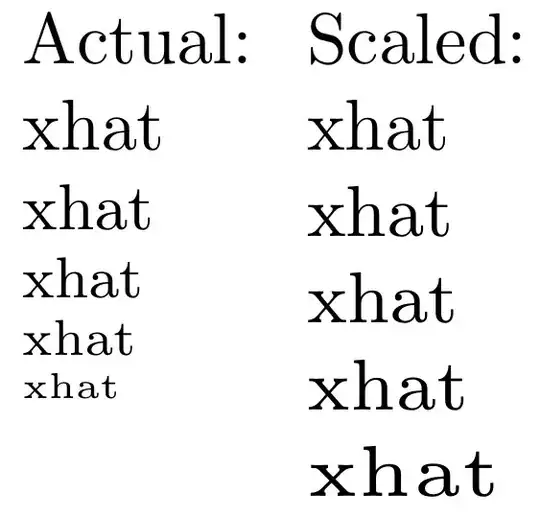
To show this with the numerals, I changed \x to 0123456789, and made the \parboxes 1 inch wide.